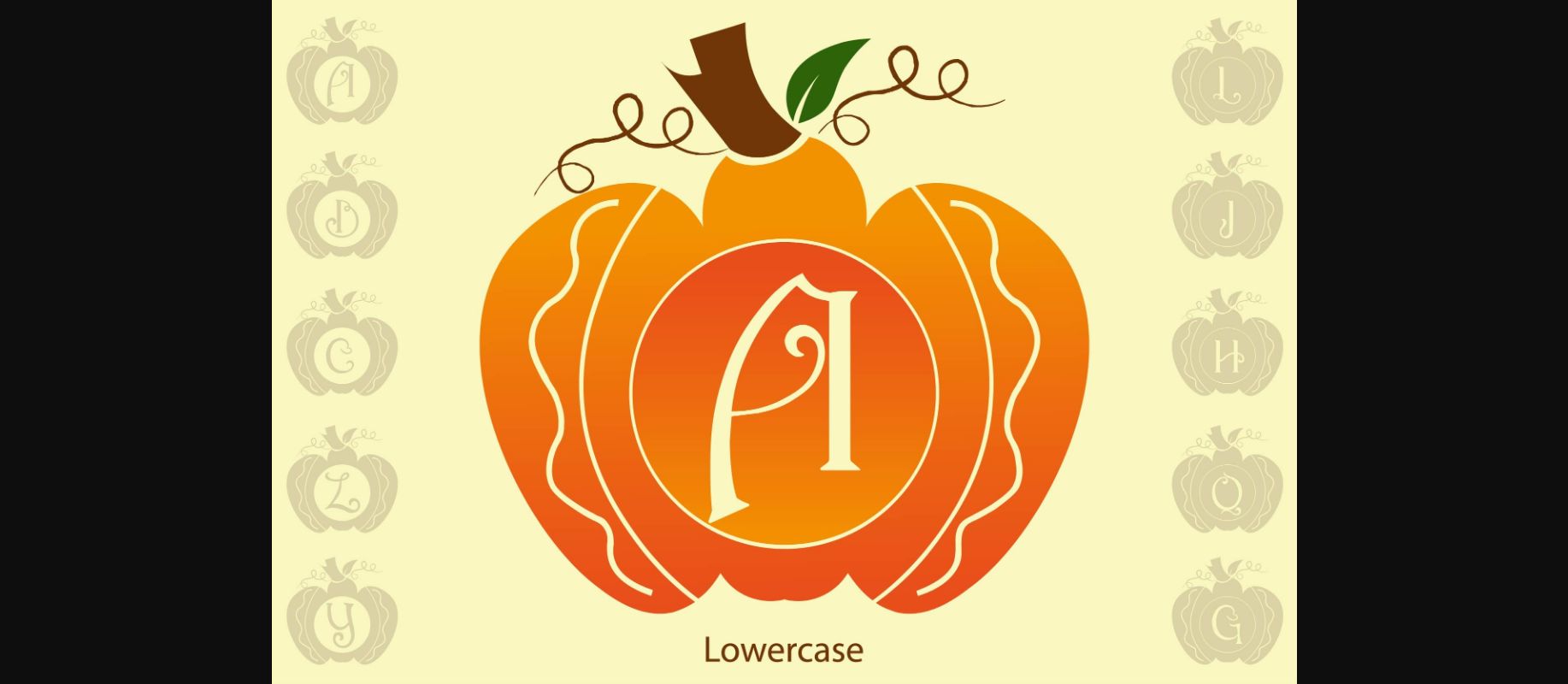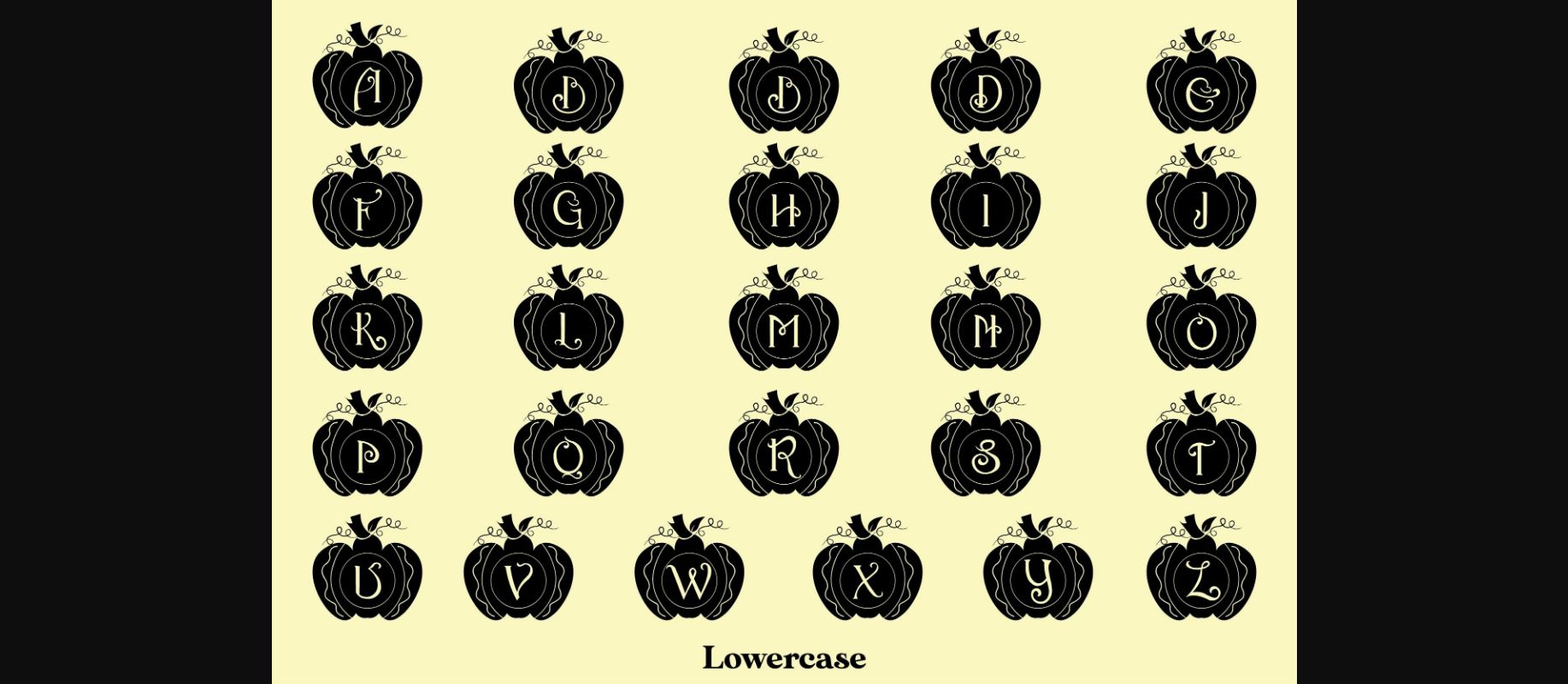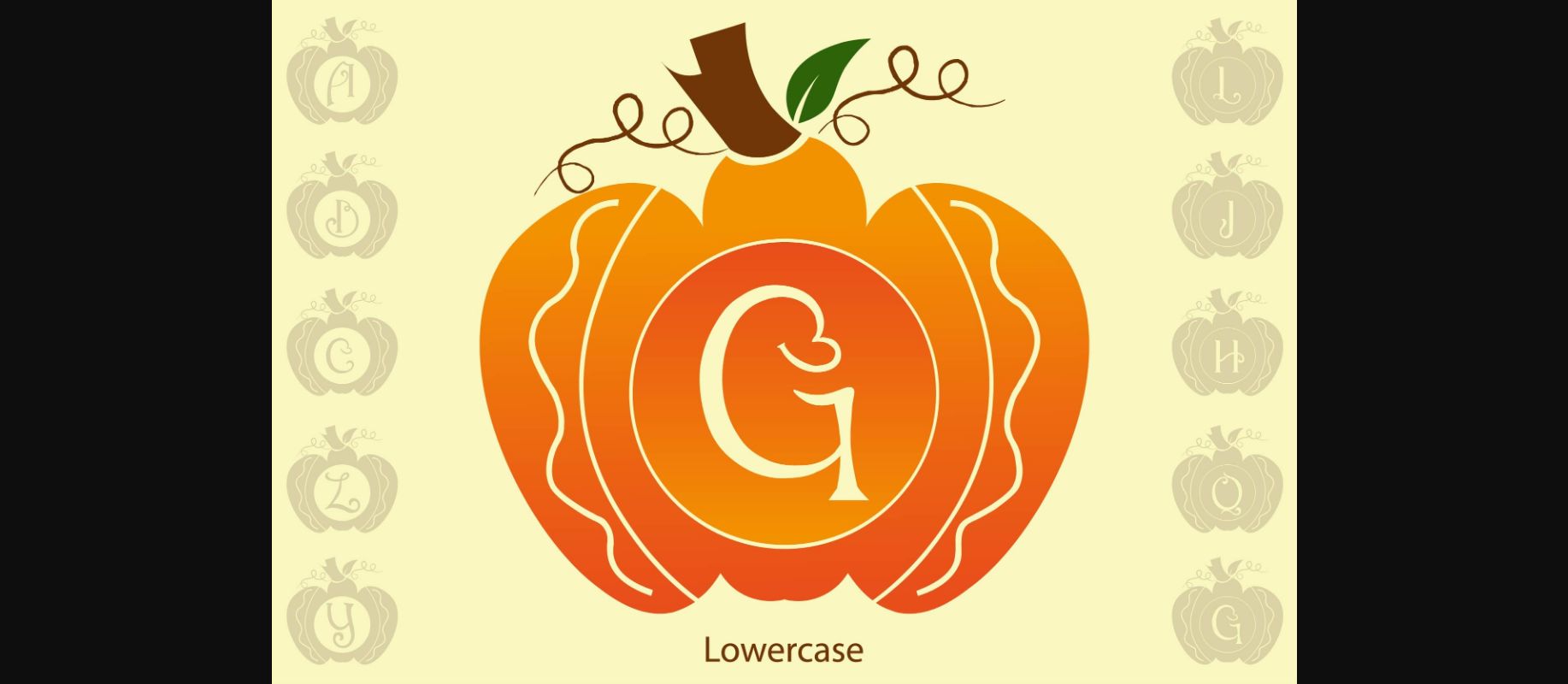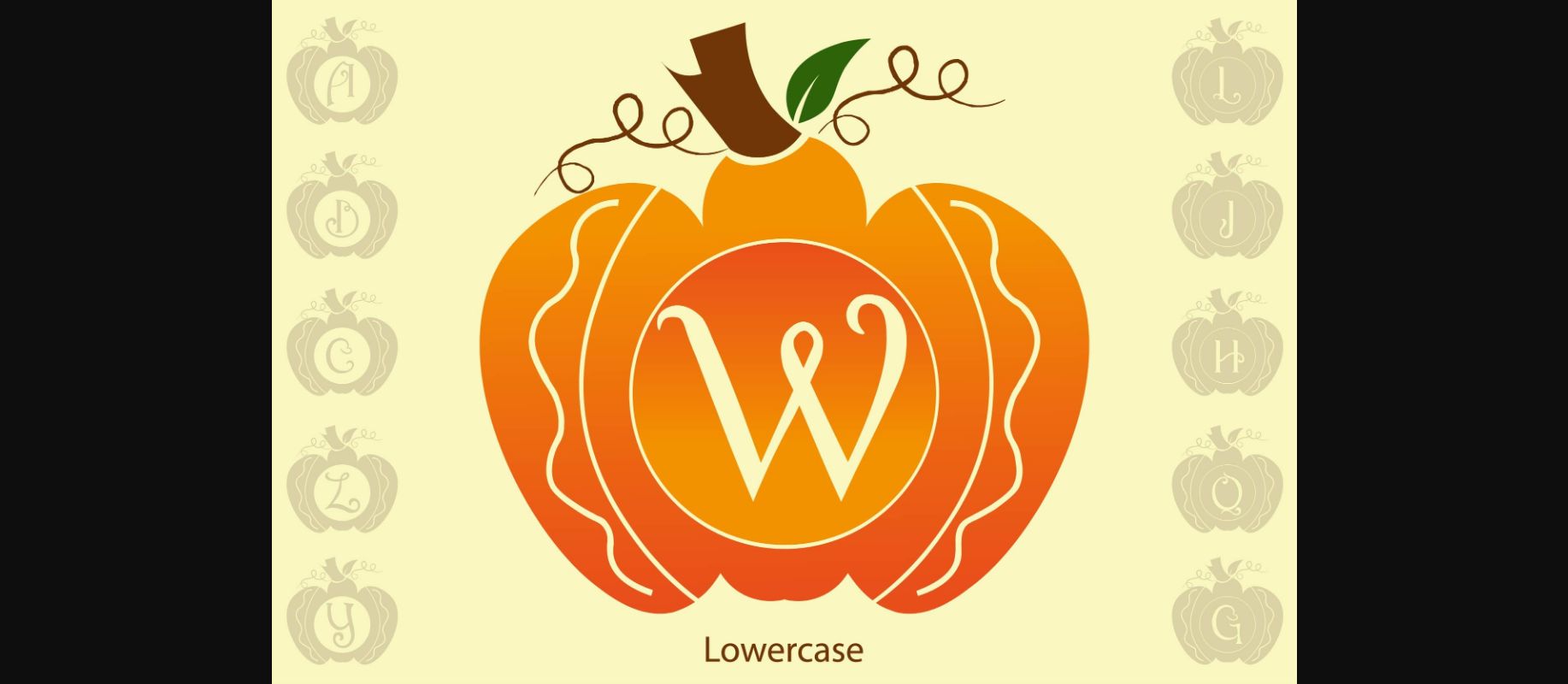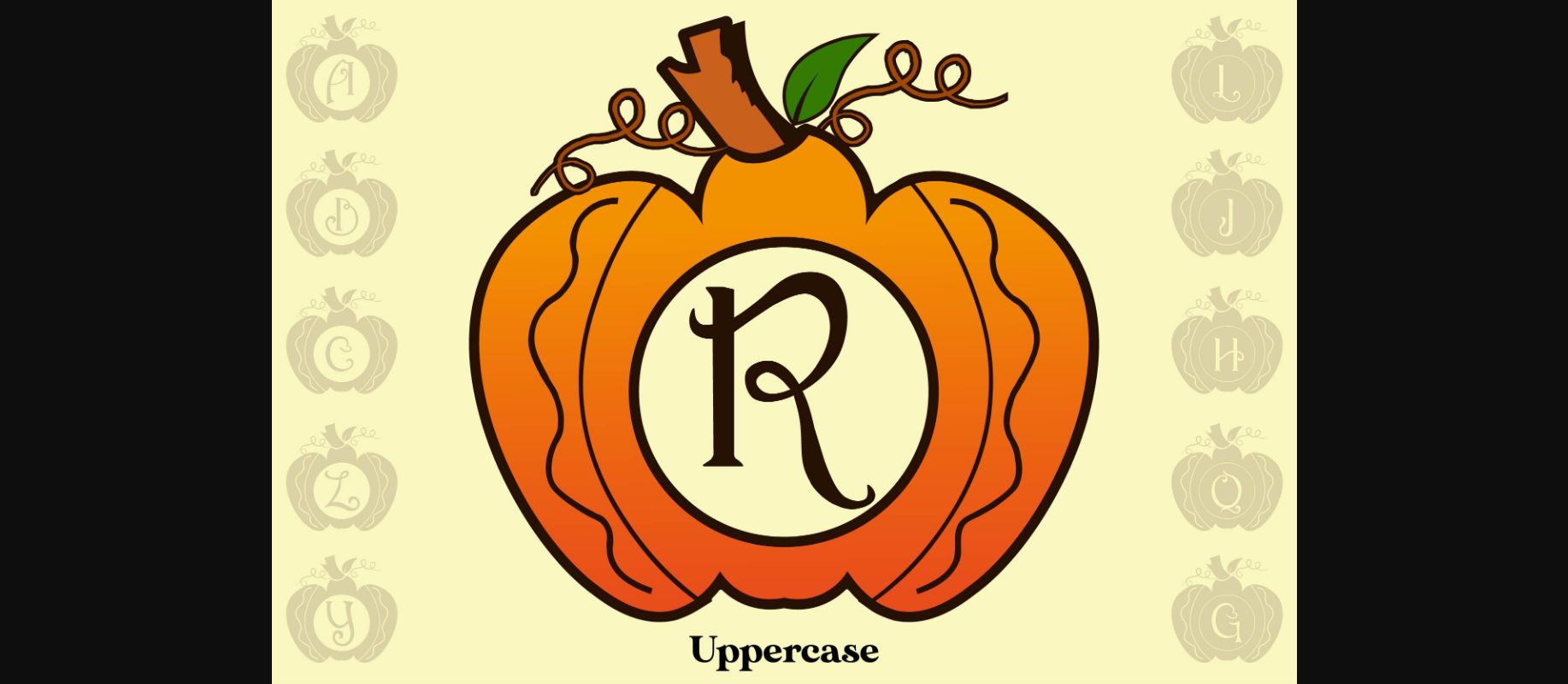
Pumpkin Waluh Monogram Font
About Pumpkin Waluh Monogram Font
Pumpkin Waluh Monogram is a charming, quirky and fun decorative font. Whether you’re looking for fonts for Instagram or calligraphy scripts for DIY projects, this font will turn any creative idea into a true piece of art!